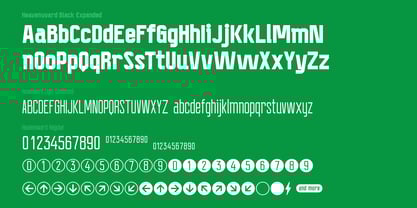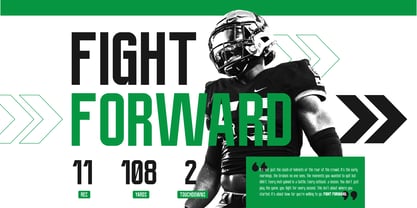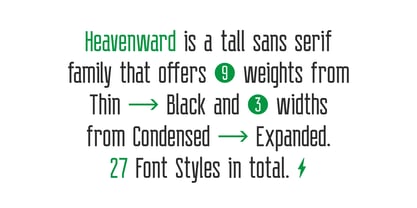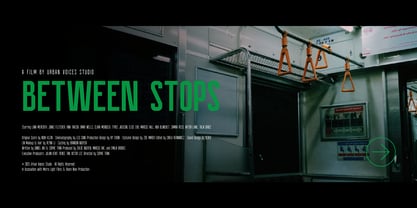
Heavenward
by Ghozai Studio
The Heavenward Font Family was designed by Manzur Ghozaali and published by Ghozai Studio. Heavenward contains 27 styles.
Heavenward is a tall sans serif family that includes 9 weights from Thin to Black and 3 widths, from Condensed to Expanded, creating a total of 27 styles. It is perfect for a variety of design needs. With a range of OpenType features, multilingual glyph support, and symbols, it’s ideal for projects in multiple languages, ensuring global versatility. Whether you’re working on bold headlines, dynamic sports graphics, or clear signage, Heavenward delivers the impact your designs need. Its clean, modern style and varied weights and widths allow it to seamlessly transition from large, attention-grabbing titles to more subtle, refined text applications. Whether used in print or digital media, Heavenward provides both legibility and style, offering endless possibilities for your creative projects.
Designers: Manzur Ghozaali
Publisher: Ghozai Studio
Foundry: Ghozai Studio
Design Owner: Ghozai Studio